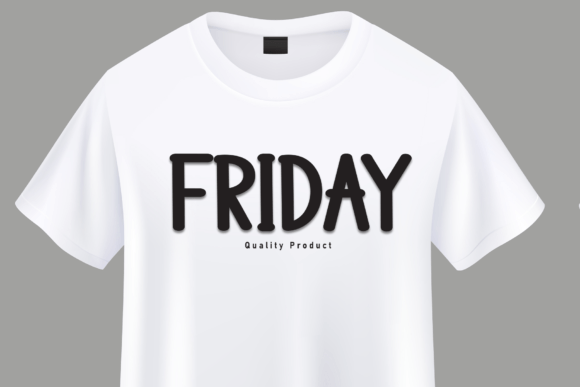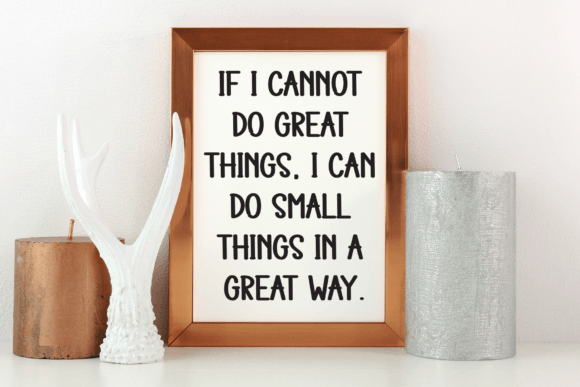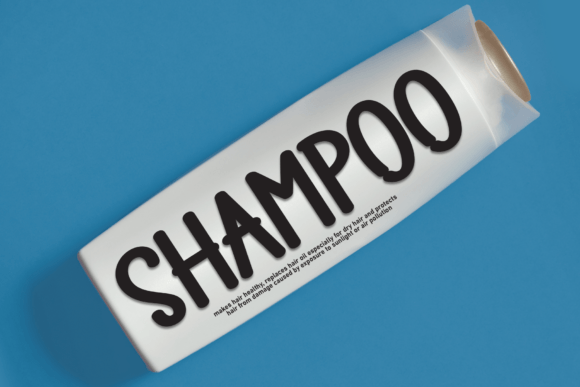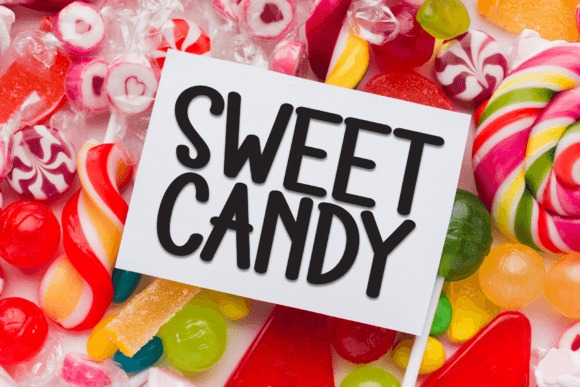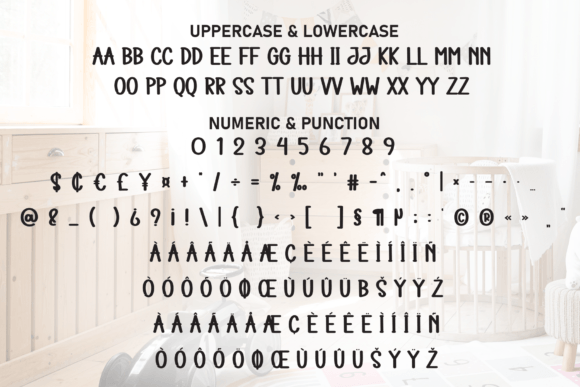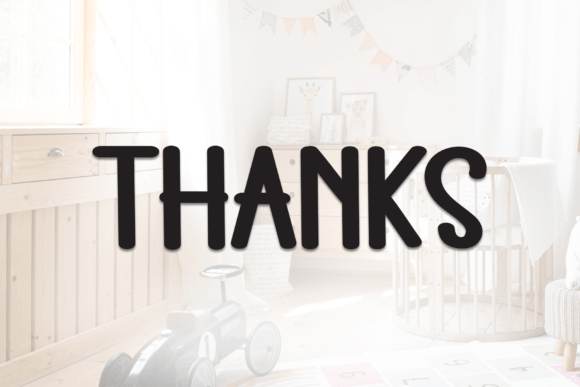
Baby Home Font: The Perfect Choice for Playful and Friendly Designs
Are you looking for a font that can add a warm and inviting touch to your designs? Look no further than the Baby Home font! This playful and friendly display font is perfect for designers and crafters who want to create fun and engaging content for children or any project that requires a personal touch.
What is Baby Home Font?
Baby Home is a display font that features cute, rounded letters that are sure to capture the attention of your audience. The font is designed to be highly legible and easy to read, making it perfect for use in a variety of design projects, from children’s books to fun party invitations.
Key Features of Baby Home Font
- Playful and Friendly Design: The Baby Home font features a playful and friendly design that is sure to add a warm and inviting touch to your designs.
- Cute, Rounded Letters: The font features cute, rounded letters that are perfect for designs that require a personal touch.
- Highly Legible: The font is designed to be highly legible and easy to read, making it perfect for use in a variety of design projects.
- Perfect for Children’s Designs: The Baby Home font is perfect for designs that are intended for children, such as children’s books, party invitations, and nursery decor.
Uses for Baby Home Font
The Baby Home font is a versatile font that can be used in a variety of design projects, including:
- Children’s Books: The font is perfect for use in children’s books, adding a playful and friendly touch to your story.
- Party Invitations: The font is great for use in party invitations, adding a fun and festive touch to your design.
- Nursery Decor: The font is perfect for use in nursery decor, adding a warm and inviting touch to your design.
- Crafting Projects: The font is great for use in crafting projects, such as scrapbooking and card making.
Why Choose Baby Home Font?
There are many reasons why you should choose the Baby Home font for your design project. Here are just a few:
- Unique Design: The Baby Home font features a unique design that is sure to set your design apart from others.
- High-Quality: The font is high-quality and is sure to look great in any design project.
Tips for Using Baby Home Font
Here are a few tips for using the Baby Home font in your design project:
- Use it with Other Fonts: The Baby Home font can be used with other fonts to create a unique and interesting design.
- Experiment with Colors: The font looks great in a variety of colors, so don’t be afraid to experiment and find the perfect color for your design.
- Use it in Combination with Images: The font looks great in combination with images, so consider using it in a design that features a photo or illustration.